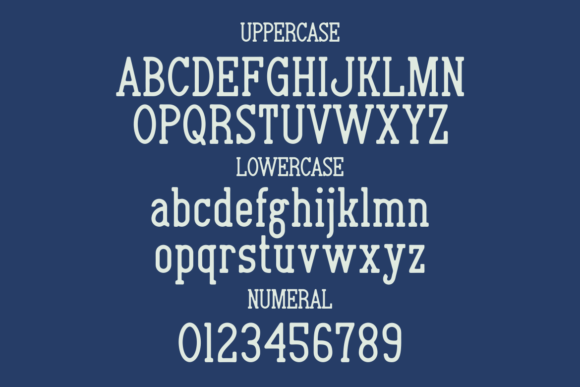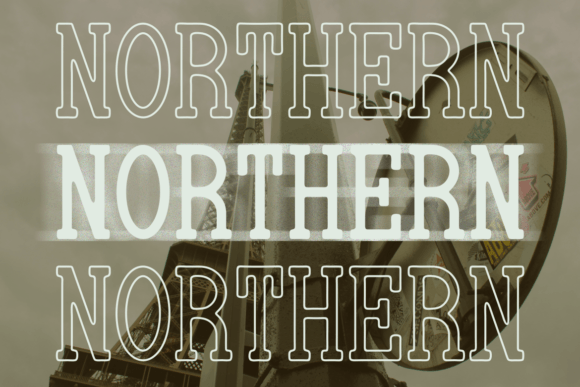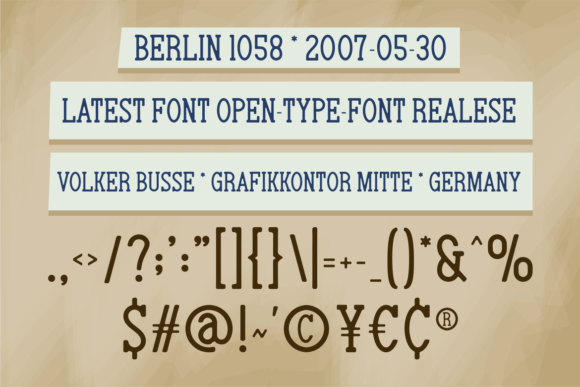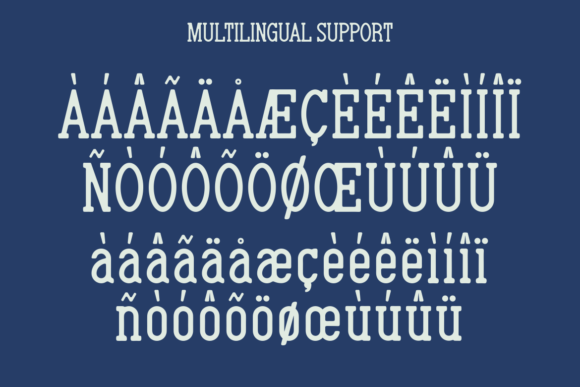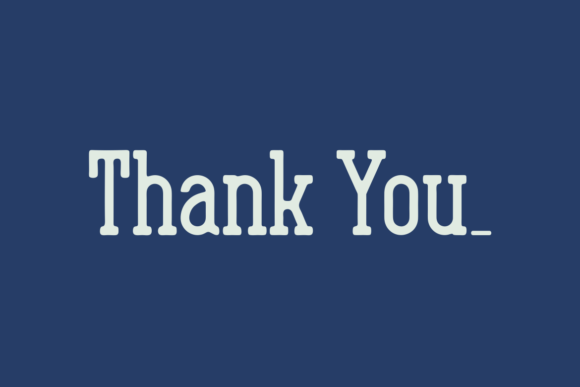
Introducing Confidend Font: The Perfect Blend of Traditional and Vintage
In the world of typography, fonts play a crucial role in conveying the tone and aesthetic of a design. For designers and crafters looking to add a touch of classic elegance to their work, Confidend Font is an excellent choice. This font combines traditional serif elements with the aesthetics of a typewriter, creating a captivating font that imparts a classic feel to any design it’s used in.
The Unique Characteristics of Confidend Font
Confidend Font produces a unique appearance that is often employed to achieve a retro or vintage impression. The font’s design is reminiscent of traditional typewriters, with a subtle distressed effect that adds to its nostalgic charm. The serif elements provide a sense of sophistication, while the typewriter-inspired aesthetic gives the font a distinctive, handmade feel.
Uses of Confidend Font
Confidend Font is a versatile font that can be used in a variety of design projects, including:
• Branding and Logo Design: The font’s unique blend of traditional and vintage elements makes it an excellent choice for creating logos and brand identities that stand out.
• Print Design: Confidend Font is perfect for print designs, such as brochures, flyers, and posters, where a classic, elegant look is desired.
• Digital Design: The font can also be used in digital designs, including websites, social media graphics, and email marketing campaigns, to add a touch of sophistication and nostalgia.
• Crafting and DIY Projects: Confidend Font is a great choice for crafters and DIY enthusiasts who want to add a personal touch to their projects, such as handmade cards, scrapbooking, and journaling.
Benefits of Using Confidend Font
Using Confidend Font in your design projects offers several benefits, including:
• Unique Aesthetic: The font’s distinctive blend of traditional and vintage elements sets it apart from other fonts and adds a touch of elegance to any design.
• Versatility: Confidend Font can be used in a variety of design projects, from print and digital designs to crafting and DIY projects.
• Easy to Read: The font is clear and easy to read, making it perfect for body text and headlines.
• Customizable: Confidend Font can be customized to suit your design needs, including adjusting font sizes, colors, and styles.
Tips for Using Confidend Font
To get the most out of Confidend Font, here are some tips to keep in mind:
• Use it Sparingly: While Confidend Font is a beautiful font, it can be overwhelming if used excessively. Use it sparingly to add emphasis and create visual interest.
• Pair it with Other Fonts: Confidend Font pairs well with other fonts, including sans-serif fonts and script fonts. Experiment with different font combinations to find the perfect look for your design.
• Adjust Font Sizes: Adjusting font sizes can help create visual hierarchy and add emphasis to important text.
• Experiment with Colors: Confidend Font looks great in a variety of colors, from classic black and white to bold and bright colors. Experiment with different colors to find the perfect look for your design.
Confidend Font is a unique and versatile font that combines traditional serif elements with the aesthetics of a typewriter. Its distinctive blend of classic and vintage elements makes it perfect for designers and crafters looking to add a touch of elegance and nostalgia to their work. With its ease of use, customizability, and versatility, Confidend Font is an excellent choice for a wide range of design projects.